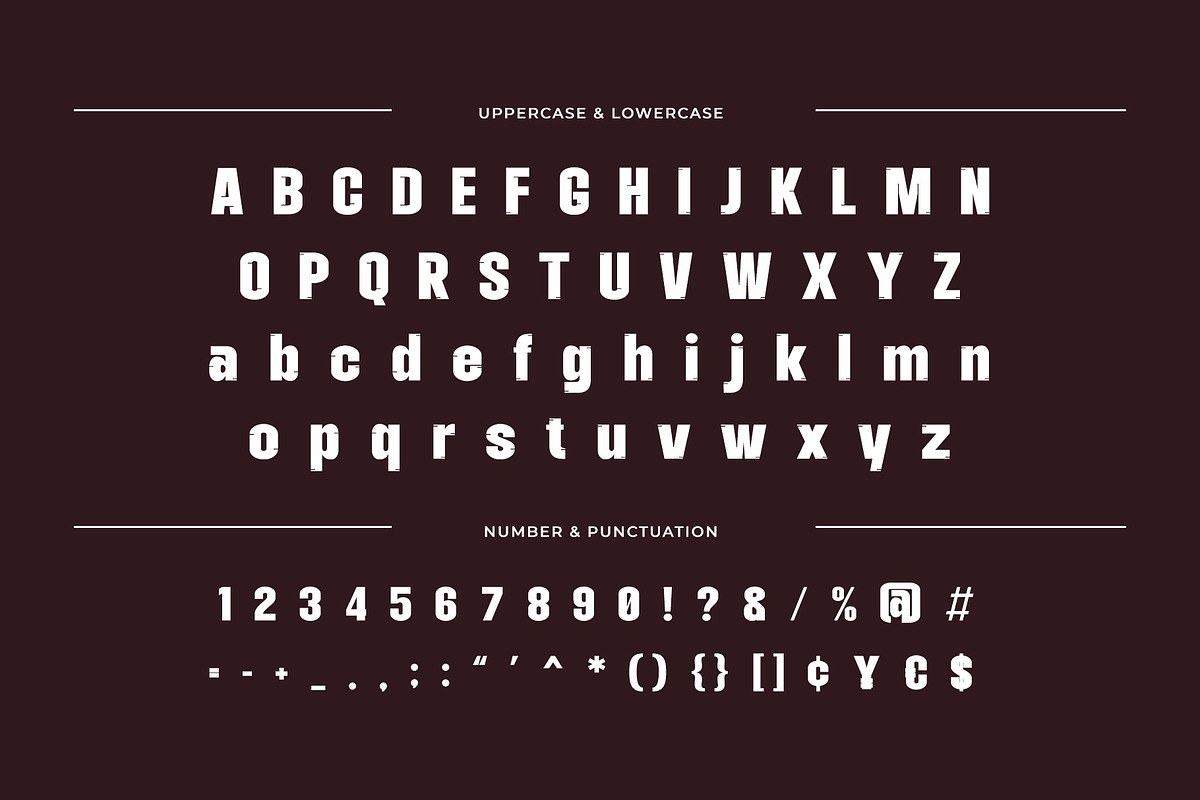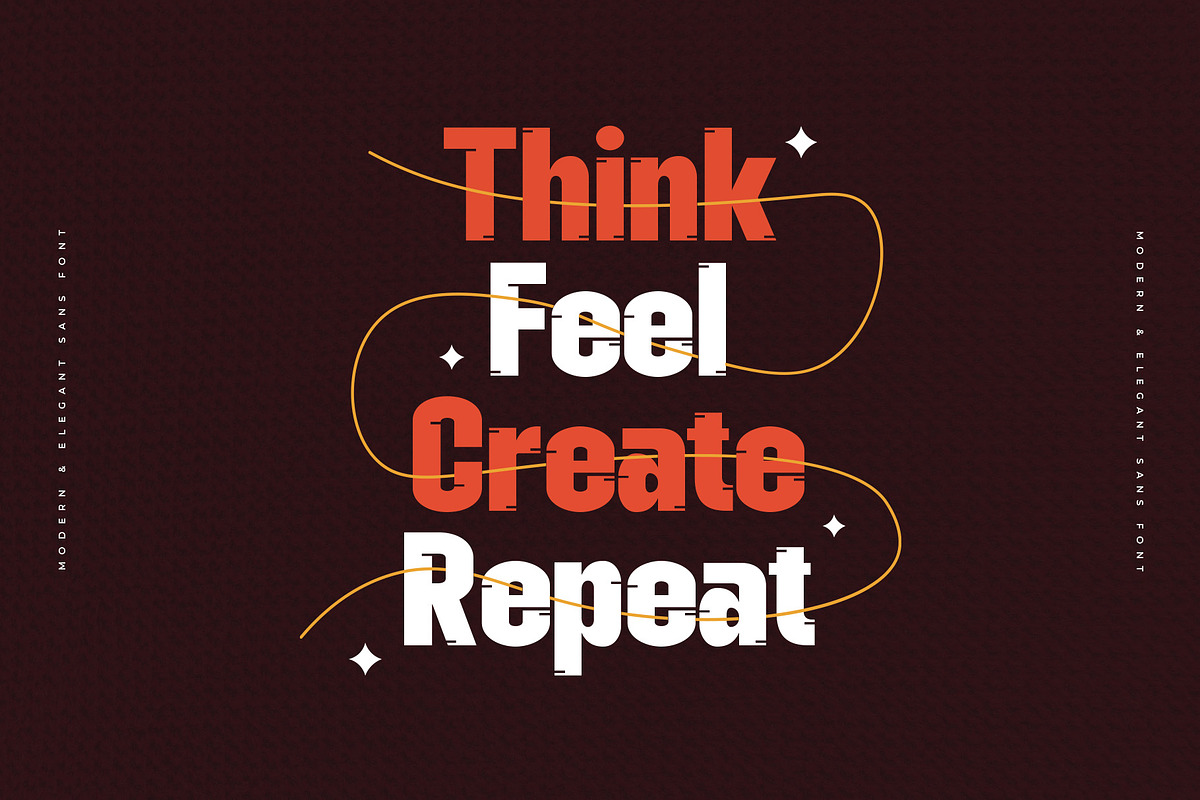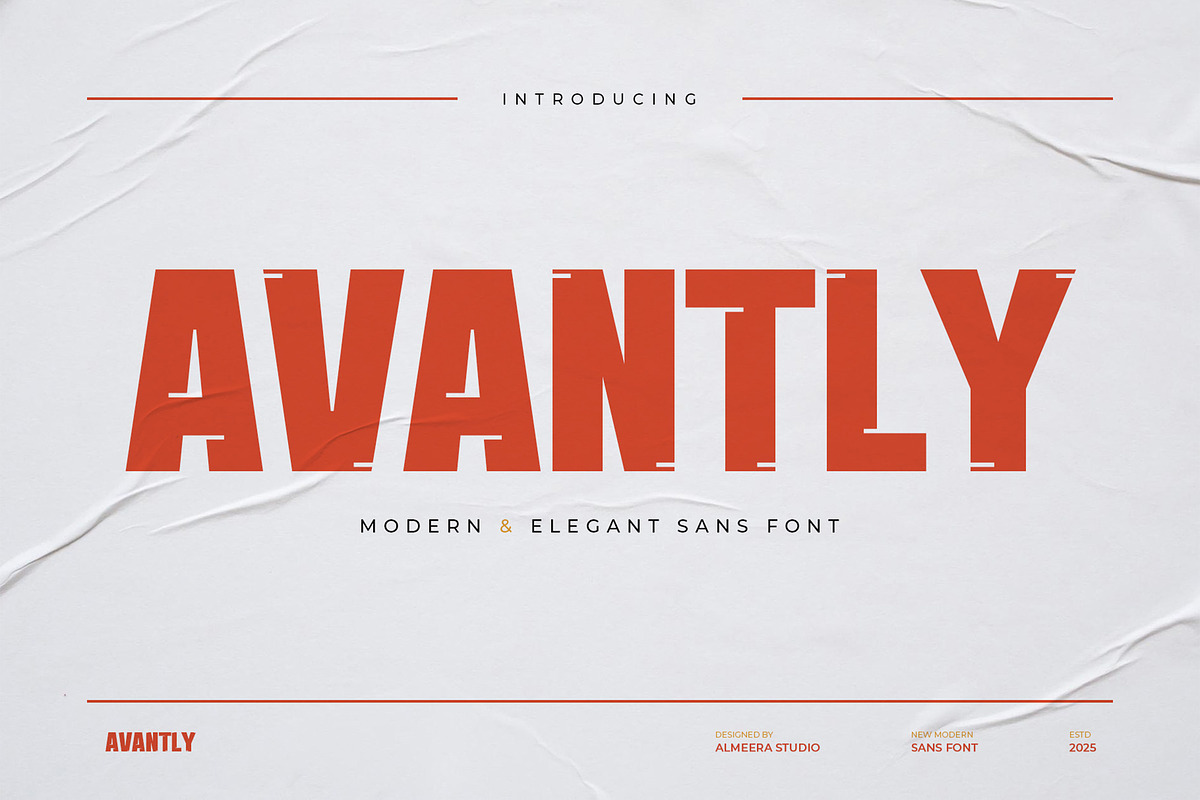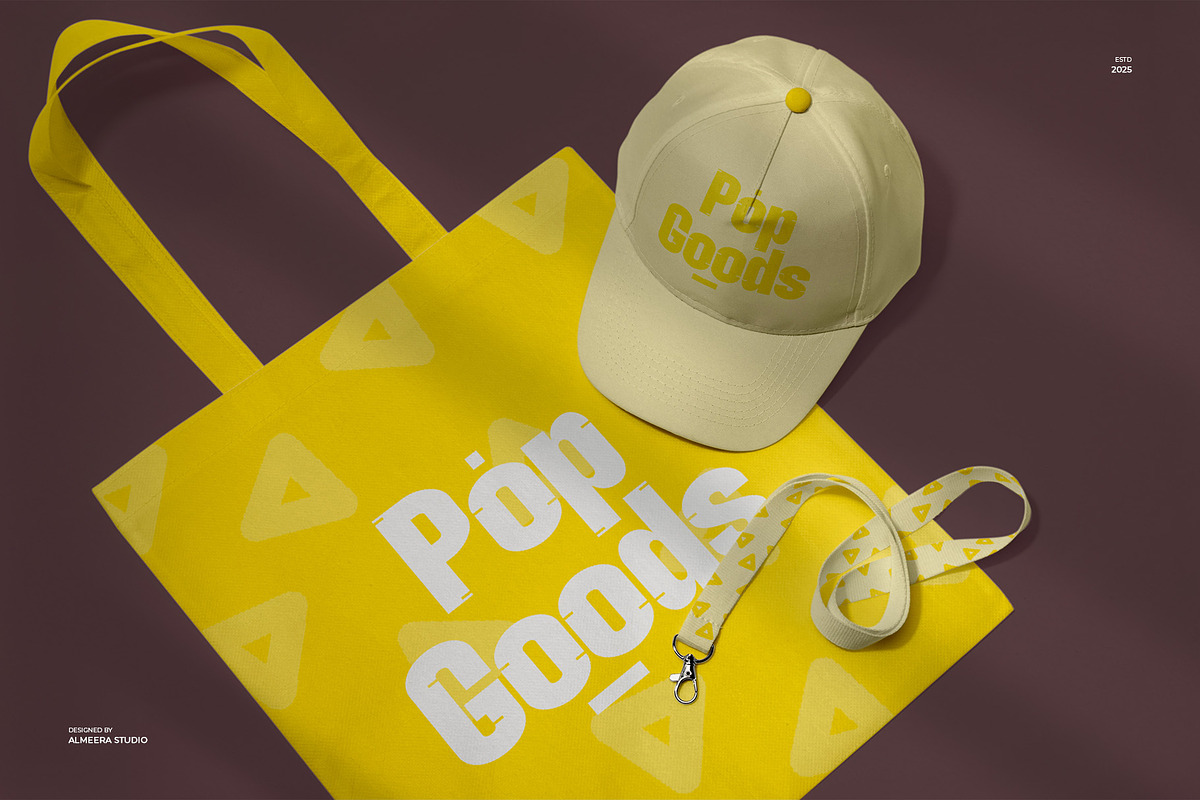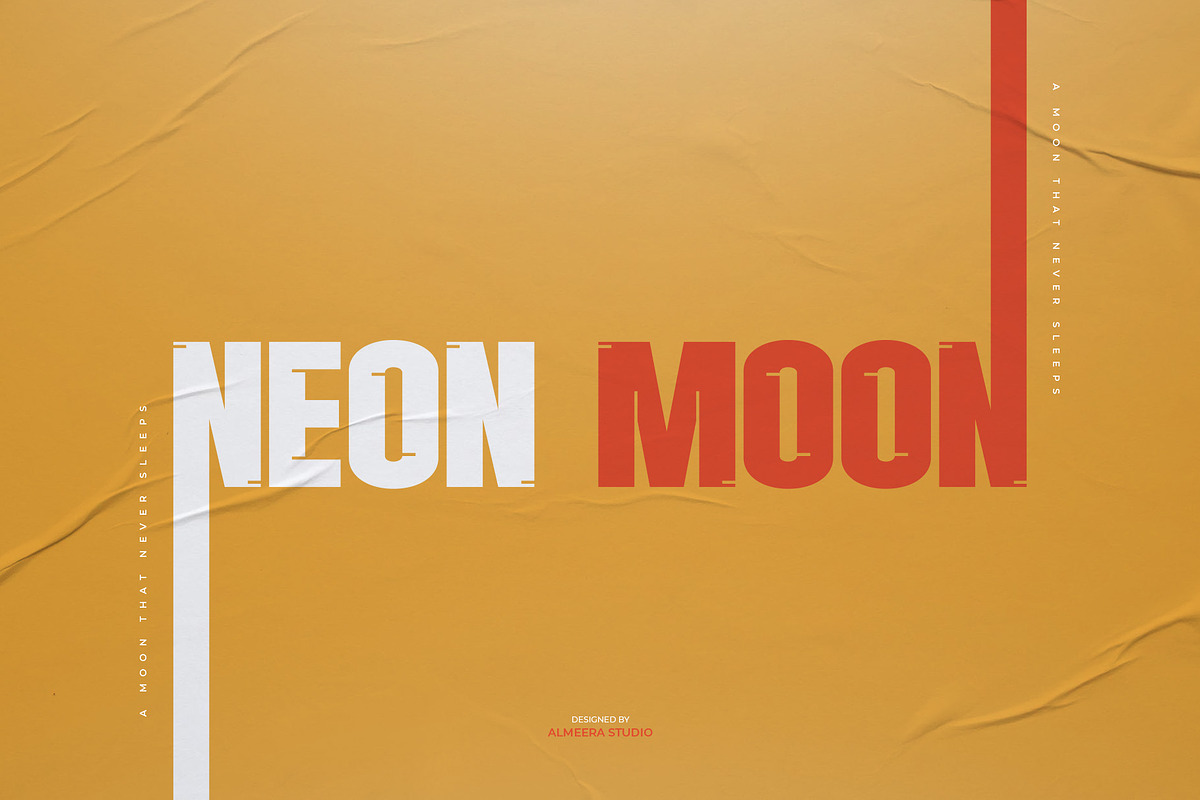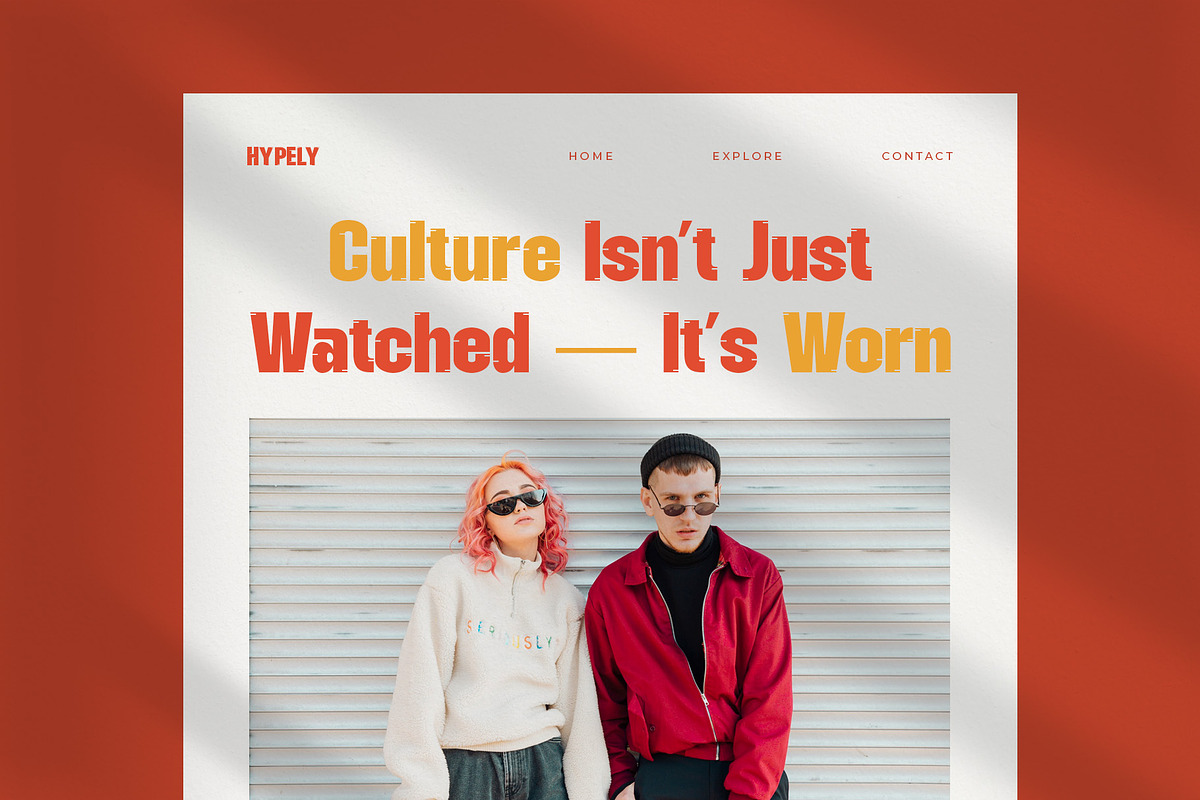
Avantly
Avantly is a high-fashion sans-serif display font with refined curves and a distinct modern edge. Perfect for editorial spreads, magazine titles, and luxury branding, it commands attention while staying elegantly understated. Avantly speaks the language of innovation and chic